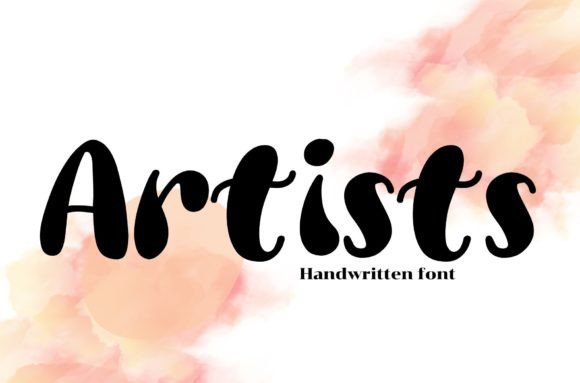
Artists Font: Elevate Your Designs with a Handwritten Touch
Are you looking for a font that can add a personal touch to your designs? Look no further than Artists Font, a beautiful handwritten font that can elevate your logos, branding, wedding invitations, business cards, and more. In this article, we’ll explore the versatility of Artists Font and how it can bring your creative ideas to life.
What is Artists Font?
Artists Font is a unique handwritten font that is perfect for adding a personal touch to your designs. Its elegant and flowing script makes it ideal for a wide range of applications, from logos and branding to wedding invitations and greeting cards.
- Handwritten font: Artists Font is a handwritten font that mimics the look of handwriting, giving your designs a personal and unique touch.
- Versatile: This font is suitable for a wide range of applications, including logos, branding, wedding invitations, business cards, greeting cards, posters, magazines, social media, planner prints, and websites.
- Perfect for children’s designs: Artists Font is especially useful for children’s designs, such as t-shirts, mugs, posters, and more.
Design Applications for Artists Font
Artists Font is a versatile font that can be used in a variety of design applications. Here are some ideas to get you started:
- Logos and branding: Use Artists Font to create a unique and memorable logo for your business or brand.
- Wedding invitations: Add a touch of elegance to your wedding invitations with Artists Font.
- Business cards: Stand out from the crowd with a business card that features Artists Font.
- Greeting cards: Create personalized greeting cards for special occasions using Artists Font.
- Posters and magazines: Use Artists Font to add a touch of personality to your posters and magazines.
- Social media: Use Artists Font to create eye-catching social media graphics and posts.
- Planner prints: Add a personal touch to your planner prints with Artists Font.
- Websites: Use Artists Font to create a unique and memorable website that stands out from the crowd.
Using Artists Font for Children’s Designs
Artists Font is especially useful for children’s designs, such as:
- T-shirts: Create fun and colorful t-shirts for kids using Artists Font.
- Mugs: Design personalized mugs for kids with Artists Font.
- Posters: Create eye-catching posters for kids’ events and activities using Artists Font.
- Children’s books: Use Artists Font to create engaging and interactive children’s books.
Tips and Tricks for Using Artists Font
Here are some tips and tricks for using Artists Font effectively:
- Experiment with colors: Artists Font looks great in a variety of colors, so don’t be afraid to experiment and find the perfect color for your design.
- Mix and match fonts: Combine Artists Font with other fonts to create a unique and interesting design.
- Use it sparingly: Use Artists Font sparingly to add a touch of personality to your design, rather than overwhelming the design with too much text.
- Pay attention to spacing: Make sure to pay attention to the spacing between letters and words to ensure that your design looks clean and professional.
Artists Font is a versatile and beautiful handwritten font that can elevate your designs and add a personal touch. With its wide range of applications and ease of use, it’s perfect for designers, artists, and crafty enthusiasts alike. Whether you’re creating logos, branding, wedding invitations, or children’s designs, Artists Font is sure to bring your creative ideas to life.